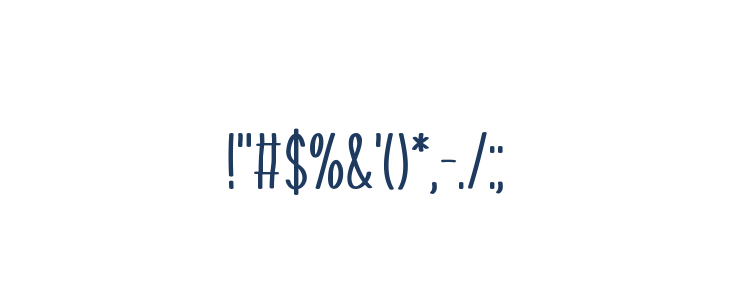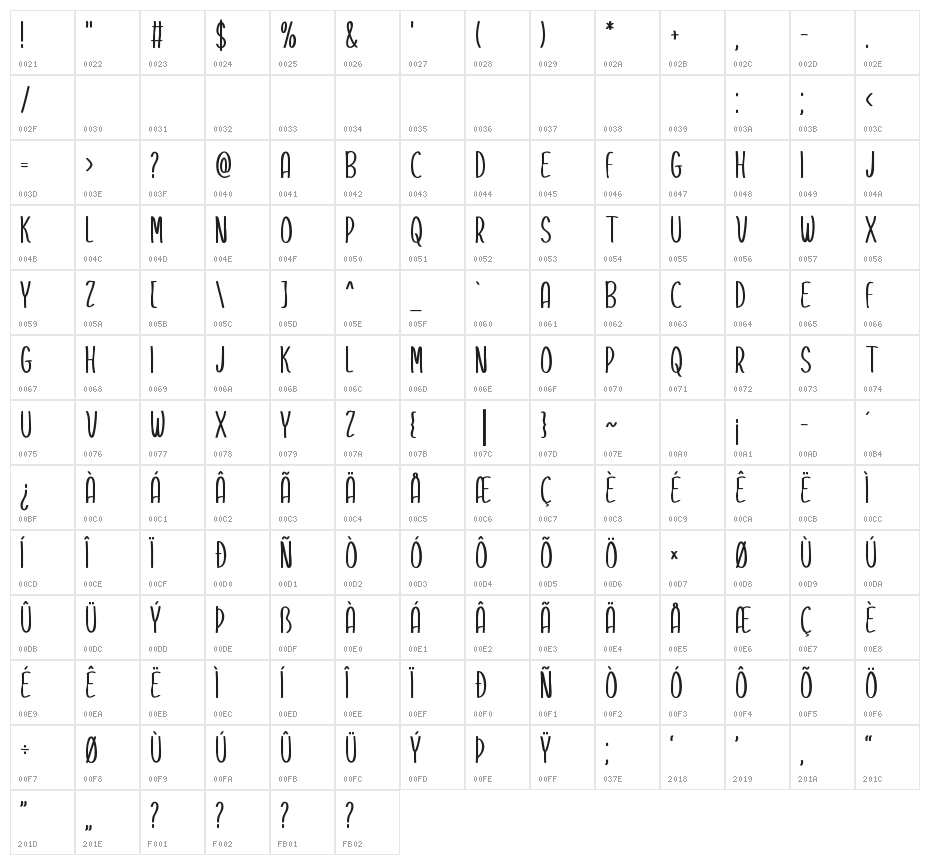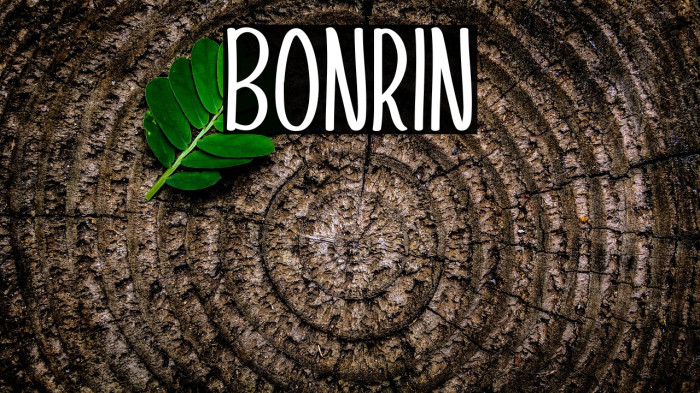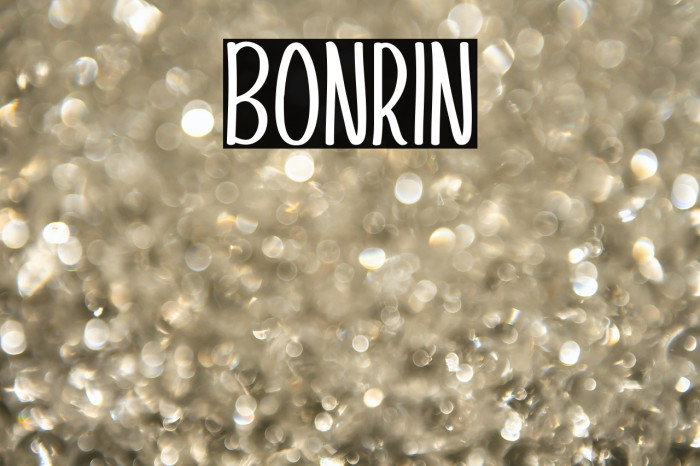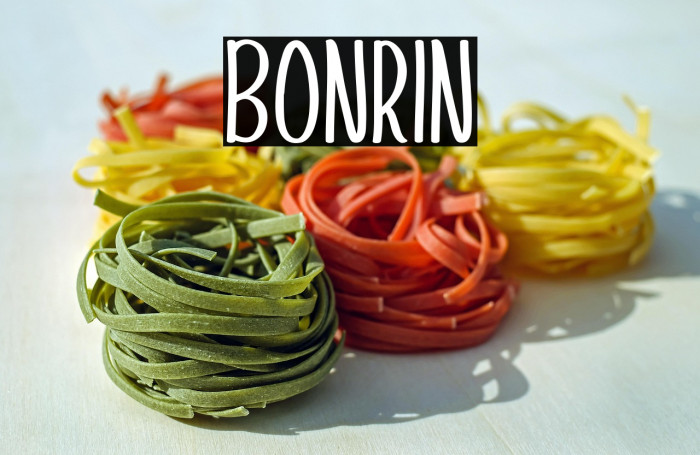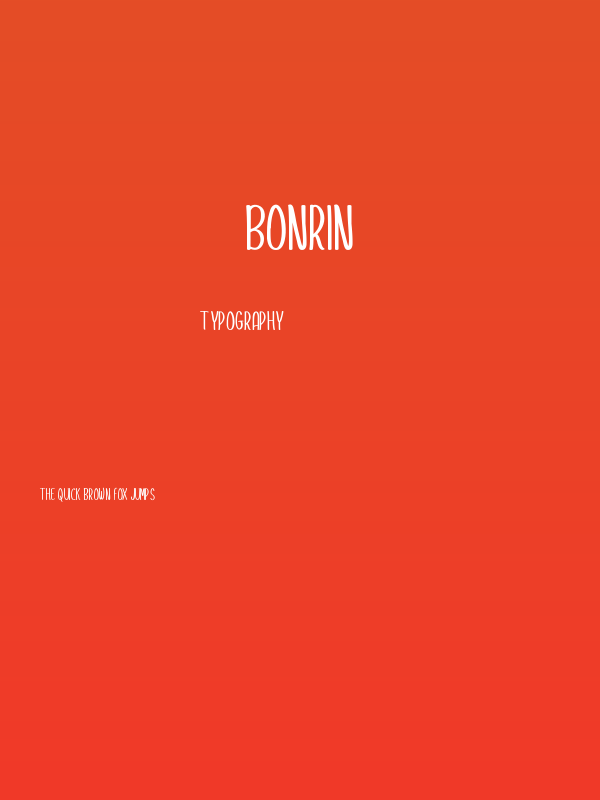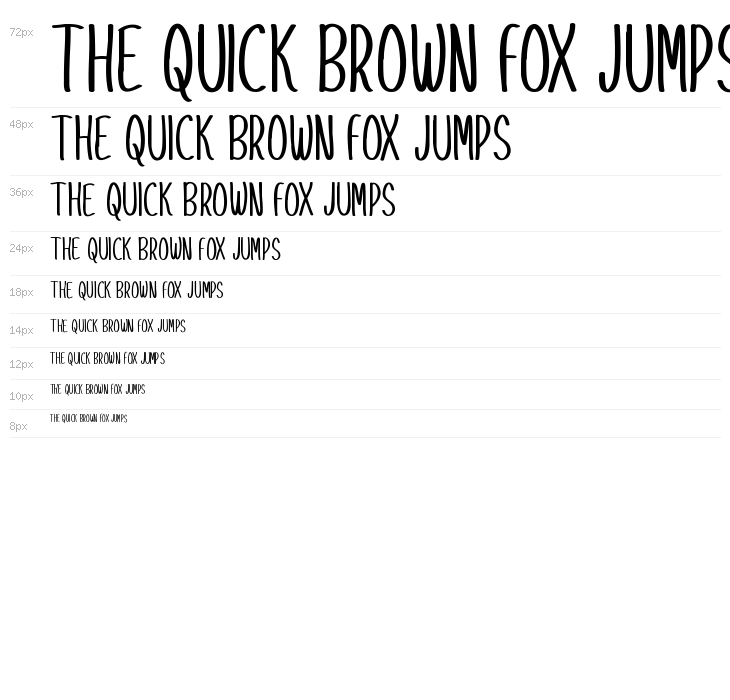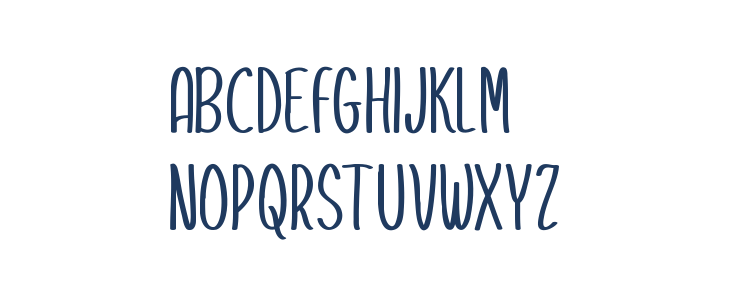
Bonrin Font
Bonrin Description
This playful and energetic font features a handwritten style with a casual and friendly appearance. The letters are slightly elongated with a consistent stroke width, giving it a modern and approachable feel. The uppercase and lowercase letters maintain a cohesive look, while the numerals and special characters complement the overall design. The font's informal style makes it ideal for projects that require a personal touch, such as invitations, greeting cards, and social media graphics. Its unique character shapes and smooth curves add a touch of whimsy, making it stand out in any design.
| Proposed Projects | Ideal for invitations, greeting cards, social media graphics, and personal branding. |